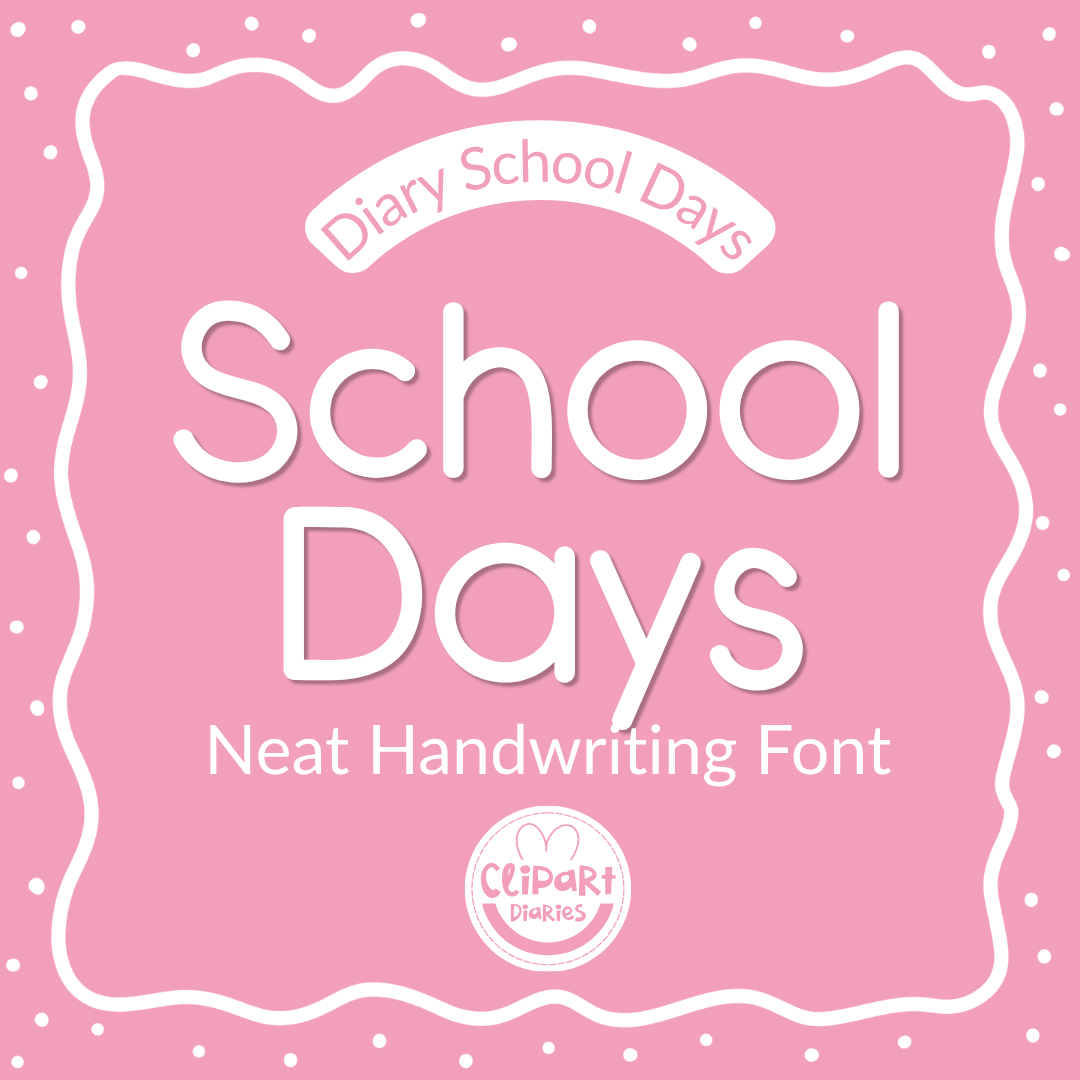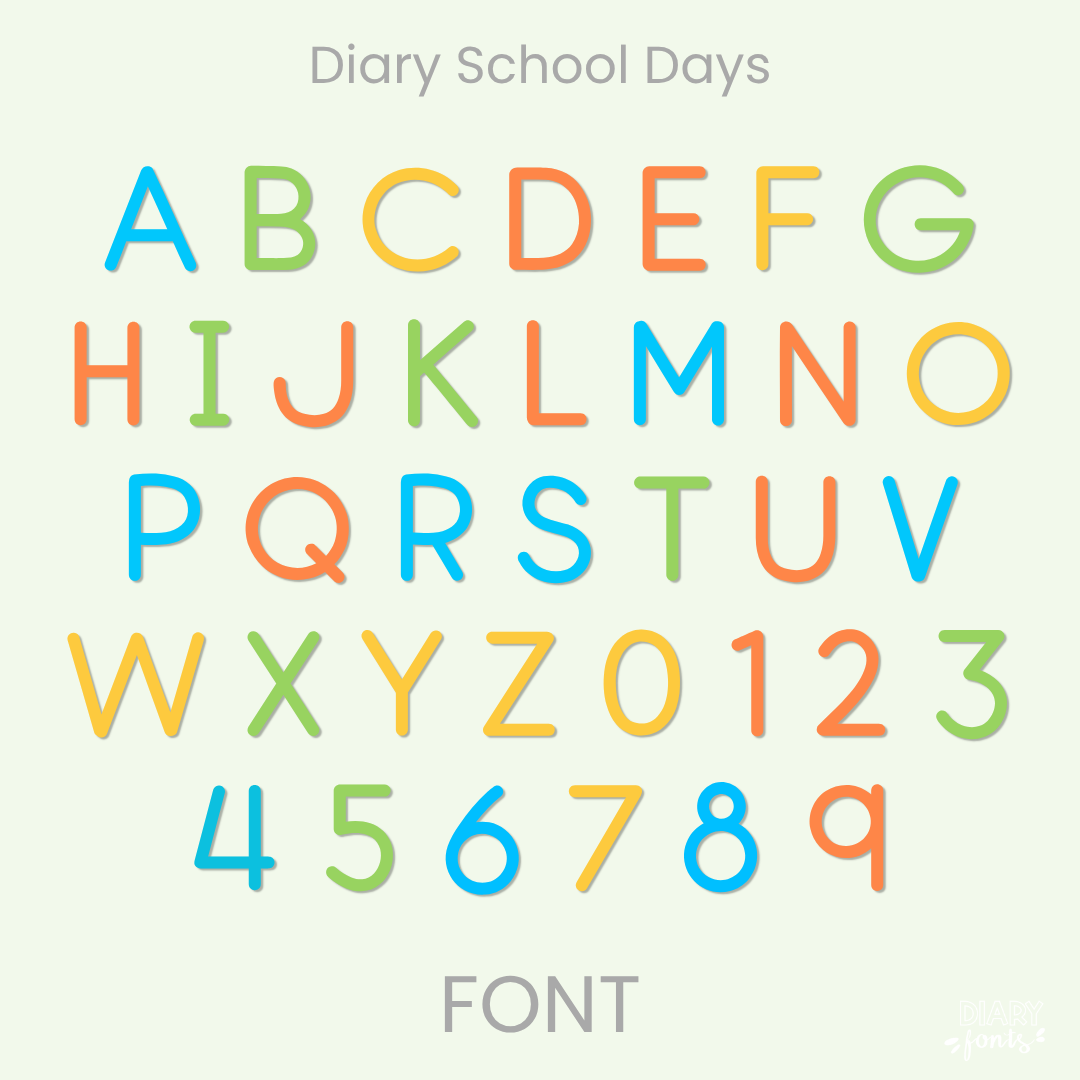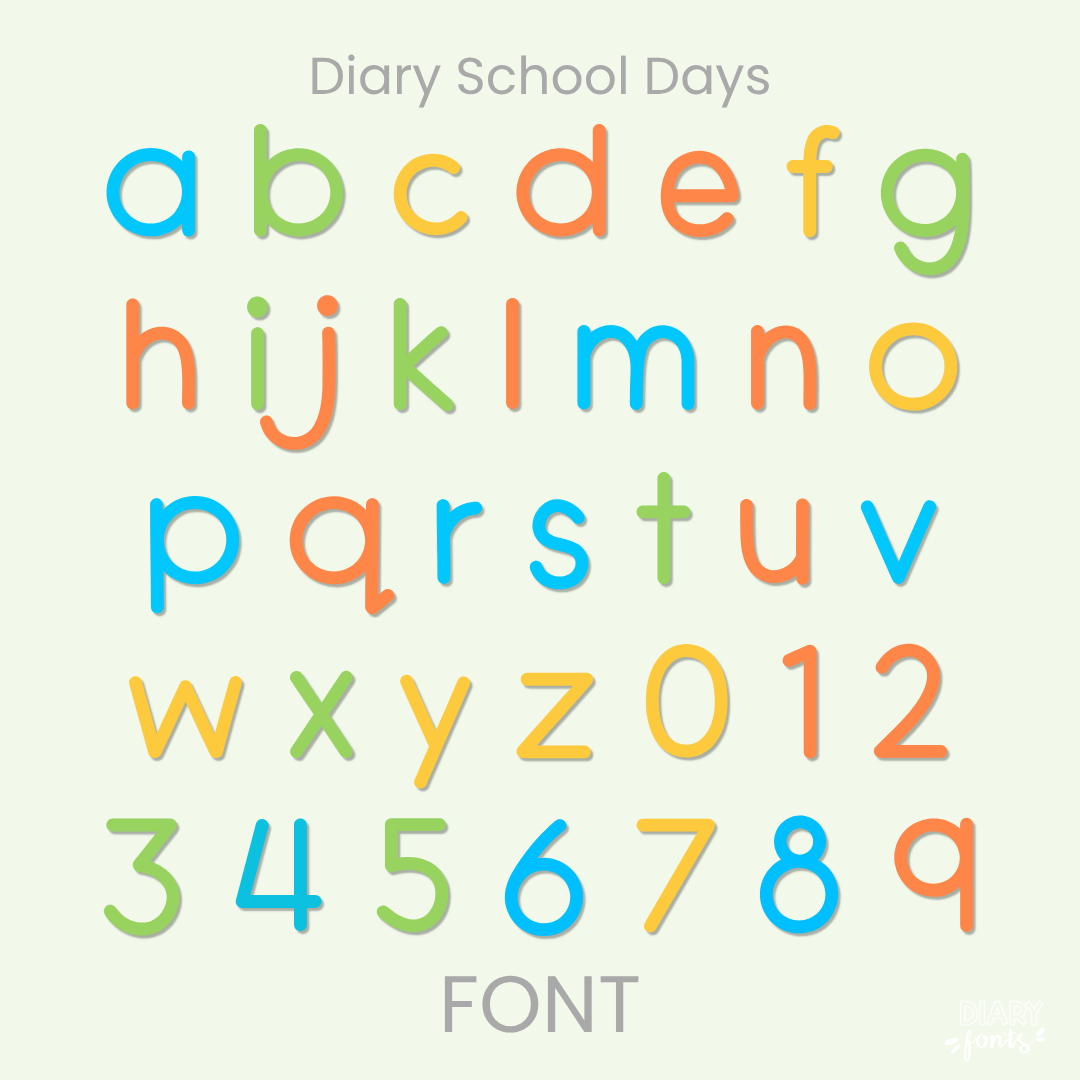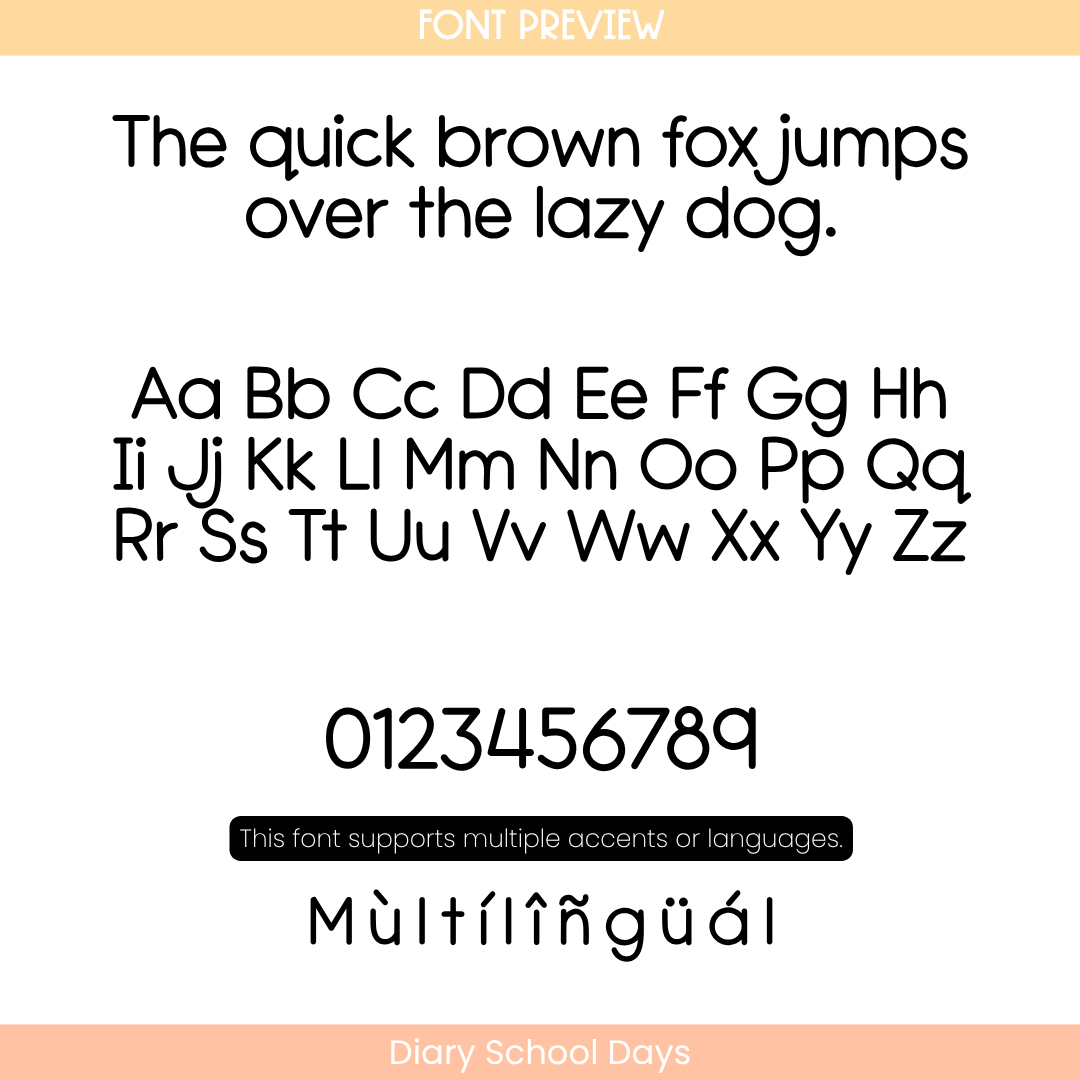
If you’ve been searching for a staple typeface that looks like the neatest handwriting on the whiteboard, Diary School Days is about to become your absolute favorite go-to. It features flawlessly straight, upright letterforms with clean, uniform lines that stay perfectly grounded along the baseline. With its balanced, open spacing and classic print structure, this font completely eliminates visual clutter, making it incredibly easy for your sweet students to track and read.
It is the perfect choice for typing up daily reading passages, elementary worksheets, spelling lists, and crisp morning presentation slides where clear legibility is your top priority. Inside the download, you’ll get a full set of neat uppercase and lowercase letters, matching numbers, and multi-accent marks for complete multilingual support. It drops right into Canva, MS Office, or Adobe on your desktop, and pairs beautifully with Procreate and GoodNotes on your iPad. Whether you’re prepping weekly worksheets for your own sweet classroom or designing fresh new resources for your teacher shop, this timeless school print font brings an effortless, professional vibe to your creative toolkit.